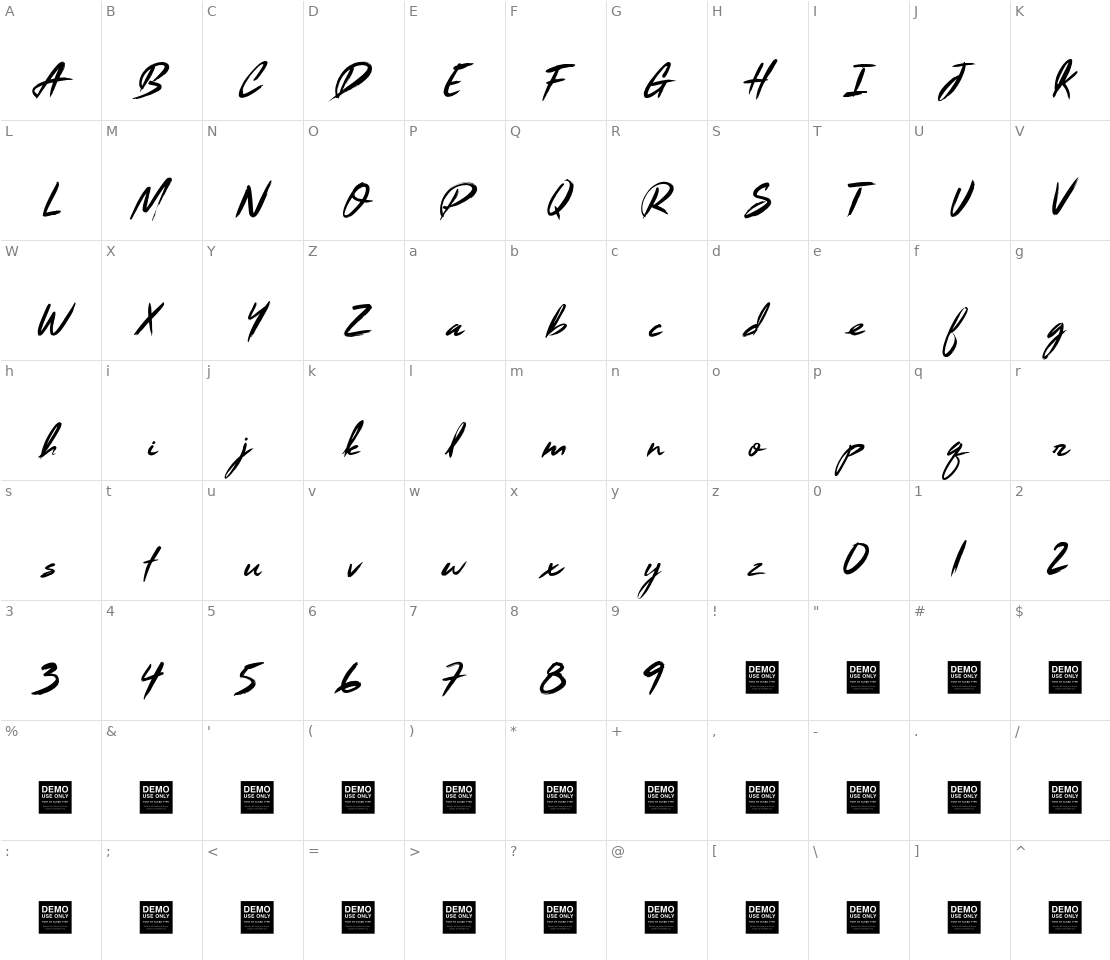
Black Marble
Black Marble is a bold brush face from BLKBK Fonts with a forward-leaning italic slant and thick, energetic strokes that feel fast and deliberate. The handwritten character gives it a raw, casual intensity that works well for headlines, packaging, and social media where you need something that grabs attention without feeling overproduced.